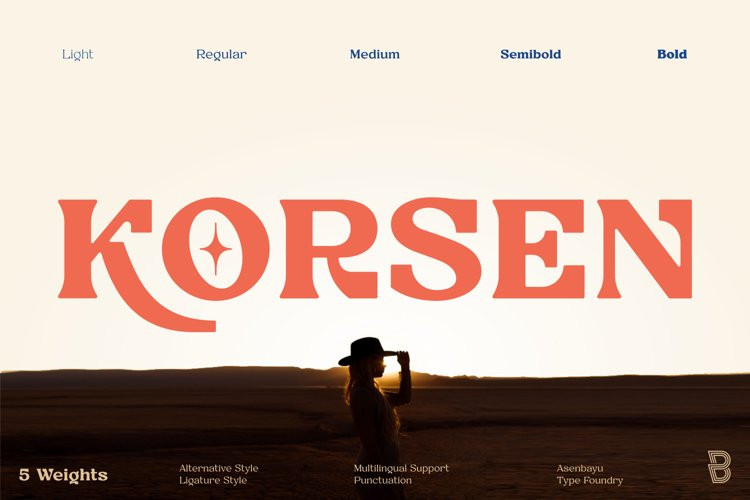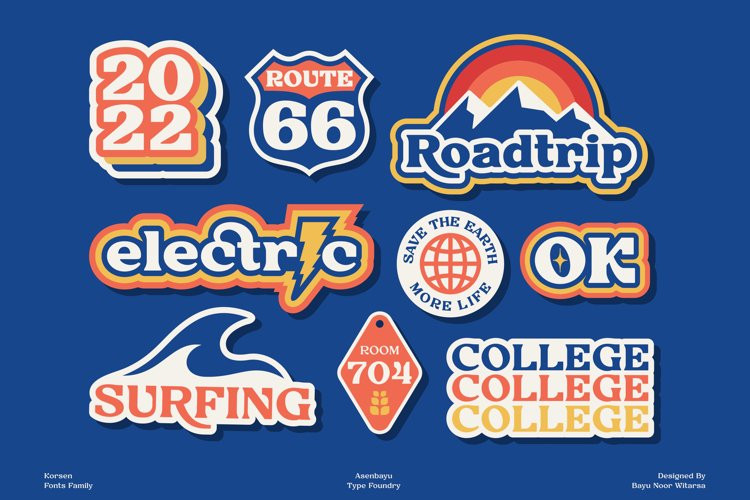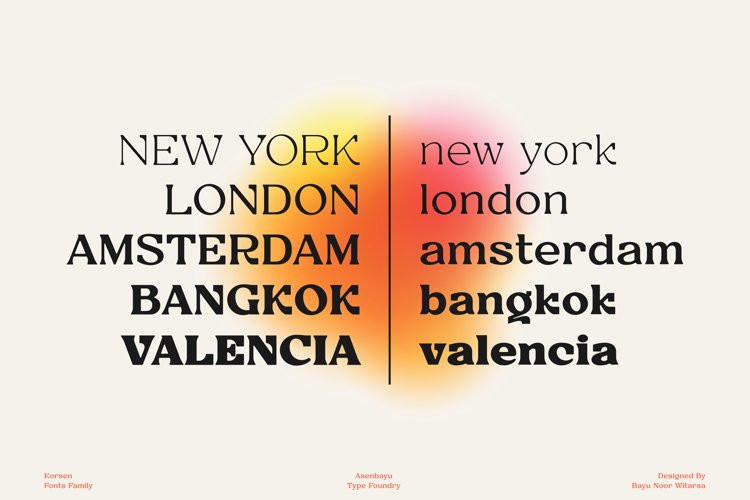
Korsen Font
Korsen FontKorsen font is a unique multipurpose font that consists of 5 styles. Korsen font has an attractive appearance which is a combination of serif, slab and decorative fonts. Each letter is carefully crafted with rounded edges. You can use this font for retro, vintage and modern designs. Korsen font can help you complete various projects such as brand logos, headlines, products, social media posts, web and much more.
Korsen fonts feature opentype, kerning, ligature and alternate packed in 5 styles: Light, Regular, Medium, SemiBold and Bold. Korsen fonts include uppercase letters, lowercase letters, numeral, punctuation and multilingual support.